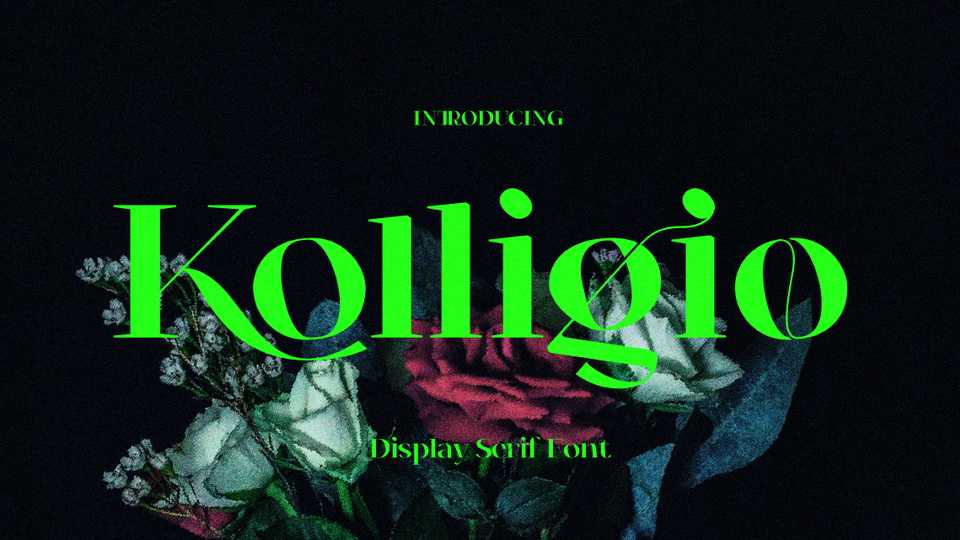
Download Kolligio font, a classic serif typeface full of modern mood, with ligatures, special alternative glyphs and old style. The high contrast between thick and thin strokes gives Kolligo font so stylish look.
Designer: Zelow Type